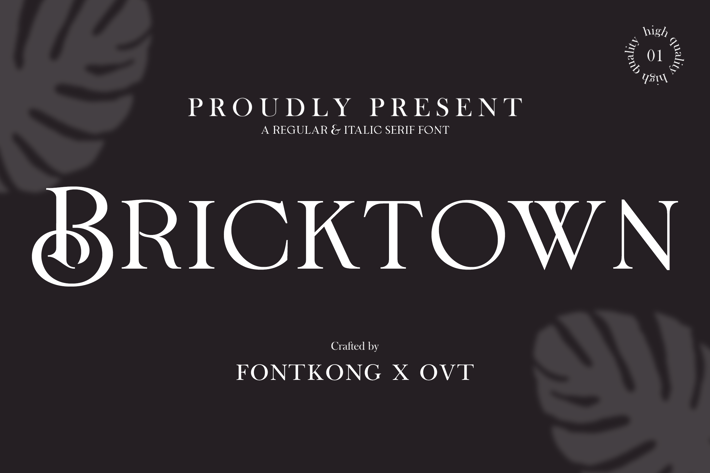
Bricktown - Regular & Italic Serif Font
Introducing "Bricktown," a sophisticated serif font that embodies the perfect blend of classic elegance and modern versatility. Crafted with precision, Bricktown is designed to enhance your projects with its timeless appeal and refined aesthetics.
Bricktown comes in both regular and italic styles, providing a comprehensive solution for your typographic needs. The regular style offers a robust and authoritative look, ideal for headlines, body text, and formal documents. The italic style adds a graceful and dynamic touch, perfect for emphasis and stylish compositions.
This font is perfect for editorial design, luxury branding, book covers, high-end packaging, and elegant invitations. Each character is meticulously designed to ensure readability and visual harmony, making your text both captivating and legible.
Bricktown includes a full set of uppercase and lowercase letters, numerals, punctuation marks, and special characters, along with extensive multilingual support. Its versatility makes it a reliable choice for designers seeking to elevate their work with a touch of sophistication.
Introducing "Bricktown," a sophisticated serif font that embodies the perfect blend of classic elegance and modern versatility. Crafted with precision, Bricktown is designed to enhance your projects with its timeless appeal and refined aesthetics.
Bricktown comes in both regular and italic styles, providing a comprehensive solution for your typographic needs. The regular style offers a robust and authoritative look, ideal for headlines, body text, and formal documents. The italic style adds a graceful and dynamic touch, perfect for emphasis and stylish compositions.
This font is perfect for editorial design, luxury branding, book covers, high-end packaging, and elegant invitations. Each character is meticulously designed to ensure readability and visual harmony, making your text both captivating and legible.
Bricktown includes a full set of uppercase and lowercase letters, numerals, punctuation marks, and special characters, along with extensive multilingual support. Its versatility makes it a reliable choice for designers seeking to elevate their work with a touch of sophistication.